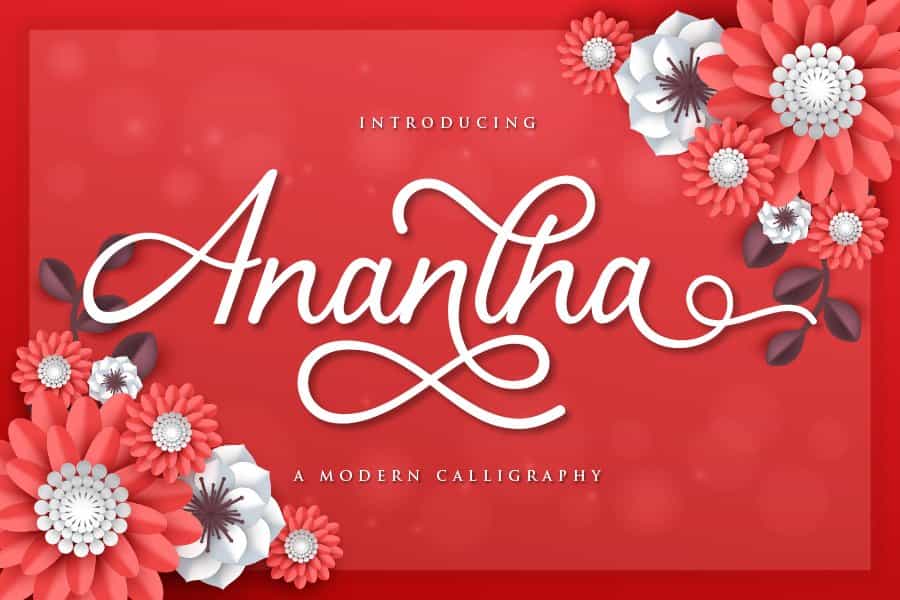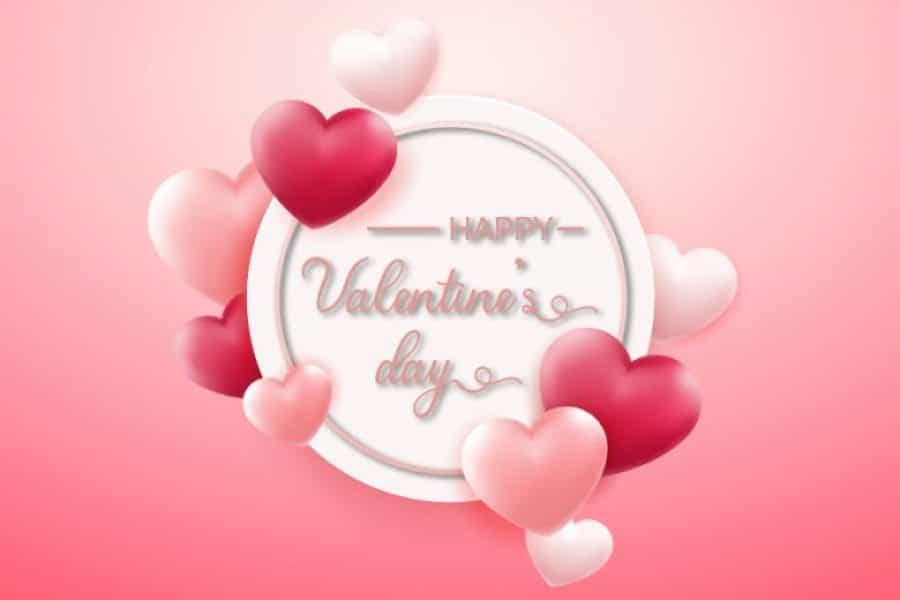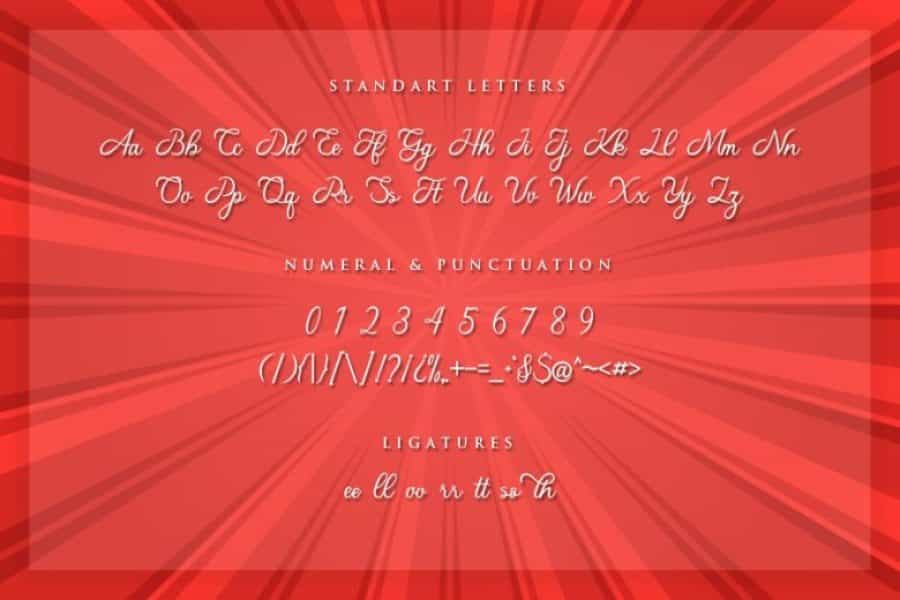
Anantha can be described as an exquisite script calligraphy font suitable for creating designs involving calligraphy. Anantha’s versatility includes handcraft, packaging for products designs, quotes, product packaging and craftsmen designs, Lanels photographs, logos watermarks brandings as well as much more! Additionally, PUA encoded font allows access to all characters and symbols easily!